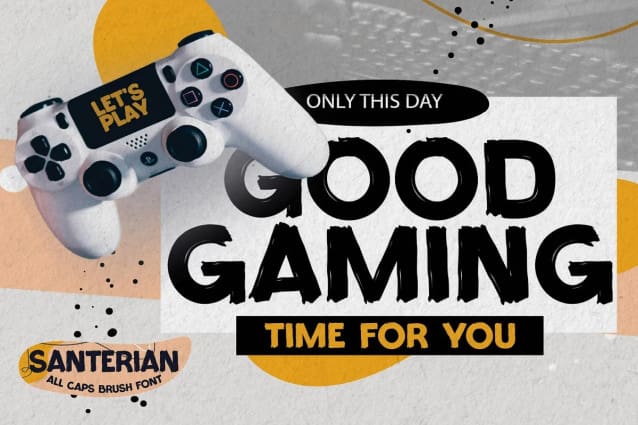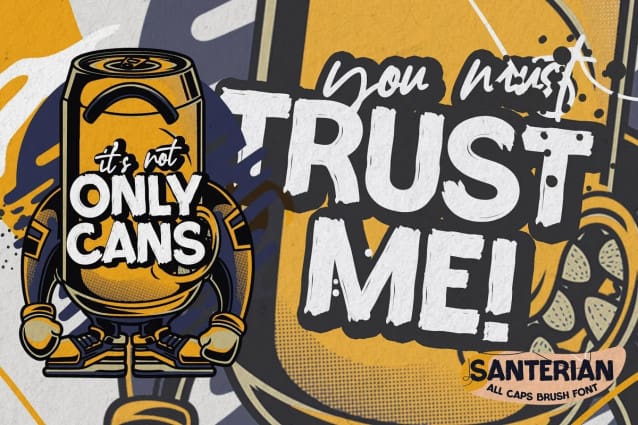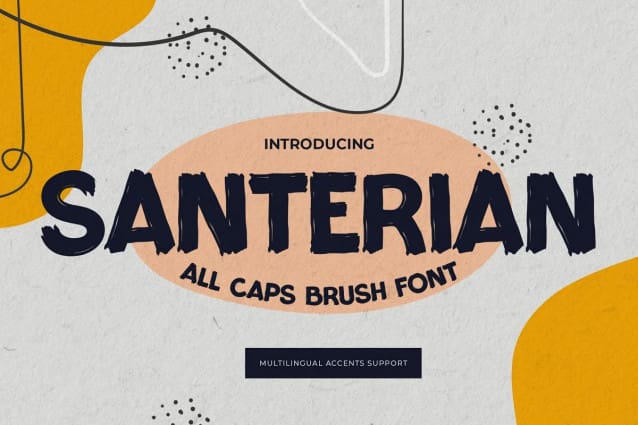
Santerian Brush Font
Santerian Brush Font is a All Caps Brush Font.This is a Textured Natural Style and classy style with a clear style and dramatic movement. This font SANTERIAN Brush Font is great for your next creative project such as logos, printed quotes, invitations, cards, product packaging, headers, Logotype, Letterhead, Poster, Design this font is great for your creative projects such as watermark on photography, and perfect for logos & branding, invitation,advertisements,product designs, stationery, wedding designs,label ,product packaging, special events or anything that need handwritting taste.
Letters are made with brushes on paper. Then scanned and carefully drawn into vector format. That is has charming, authentic and relaxed characteristic more natural look to your text